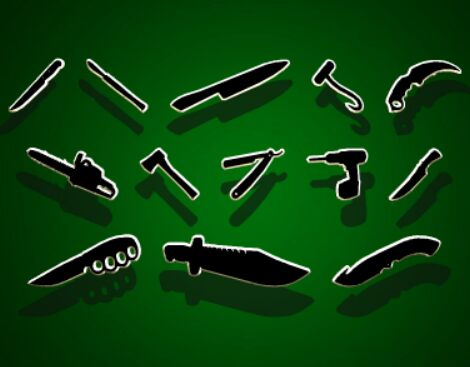
Psycho's Toolshed 3D font is a military dingbat font designed by Daniel Zadorozny of Iconian Fonts.
Psycho's Toolshed is a dingbats font with over 40 silhouettes of knives, daggers, power tools, picks, etc.